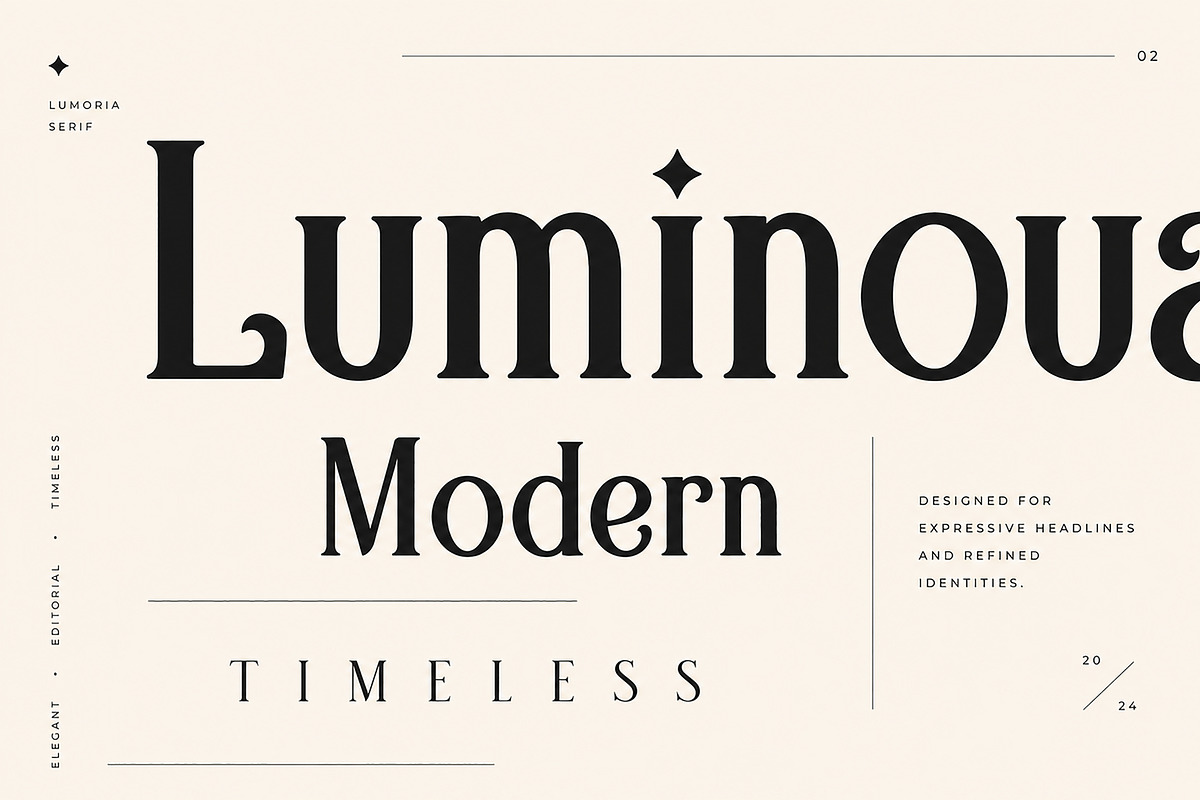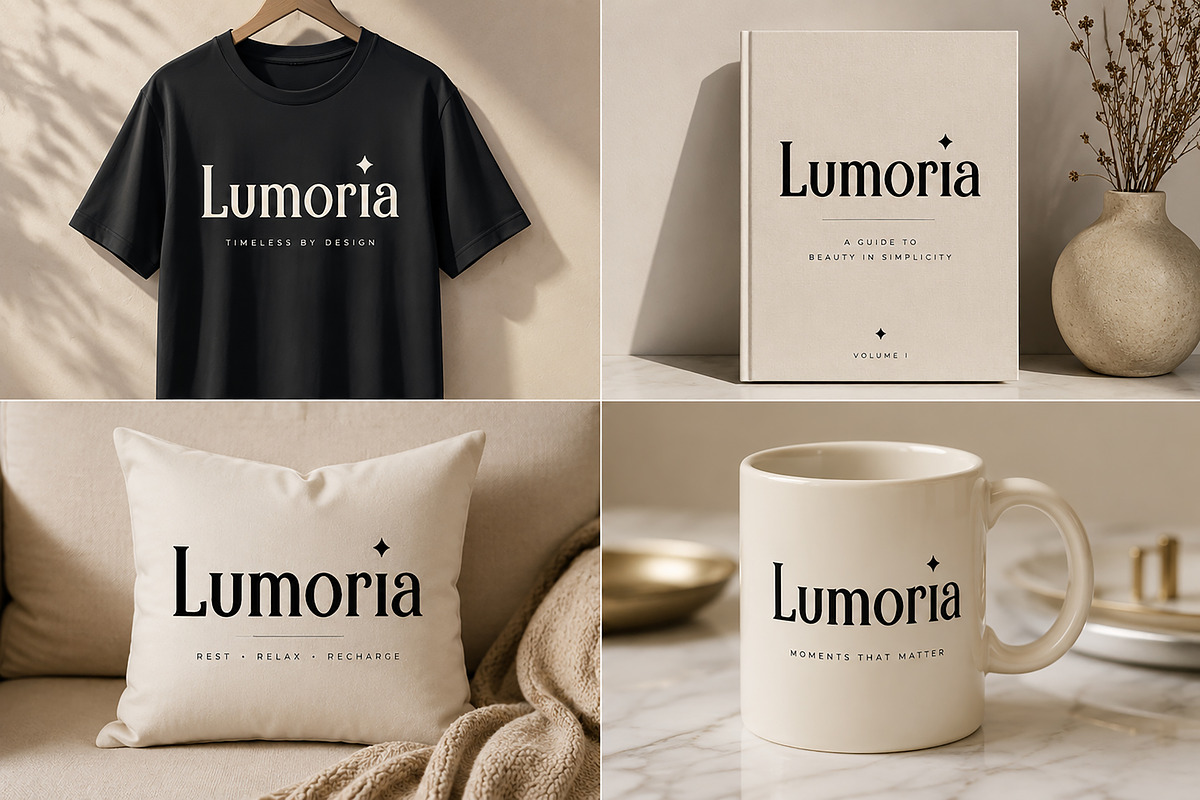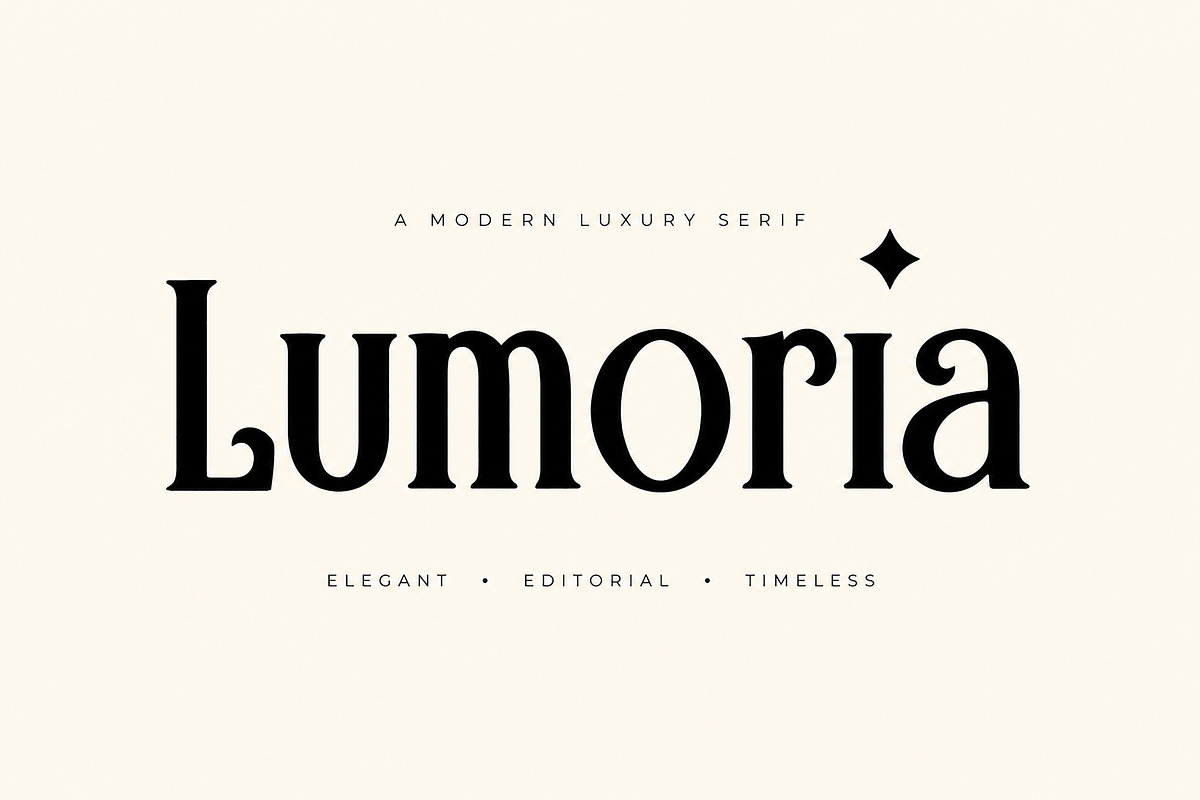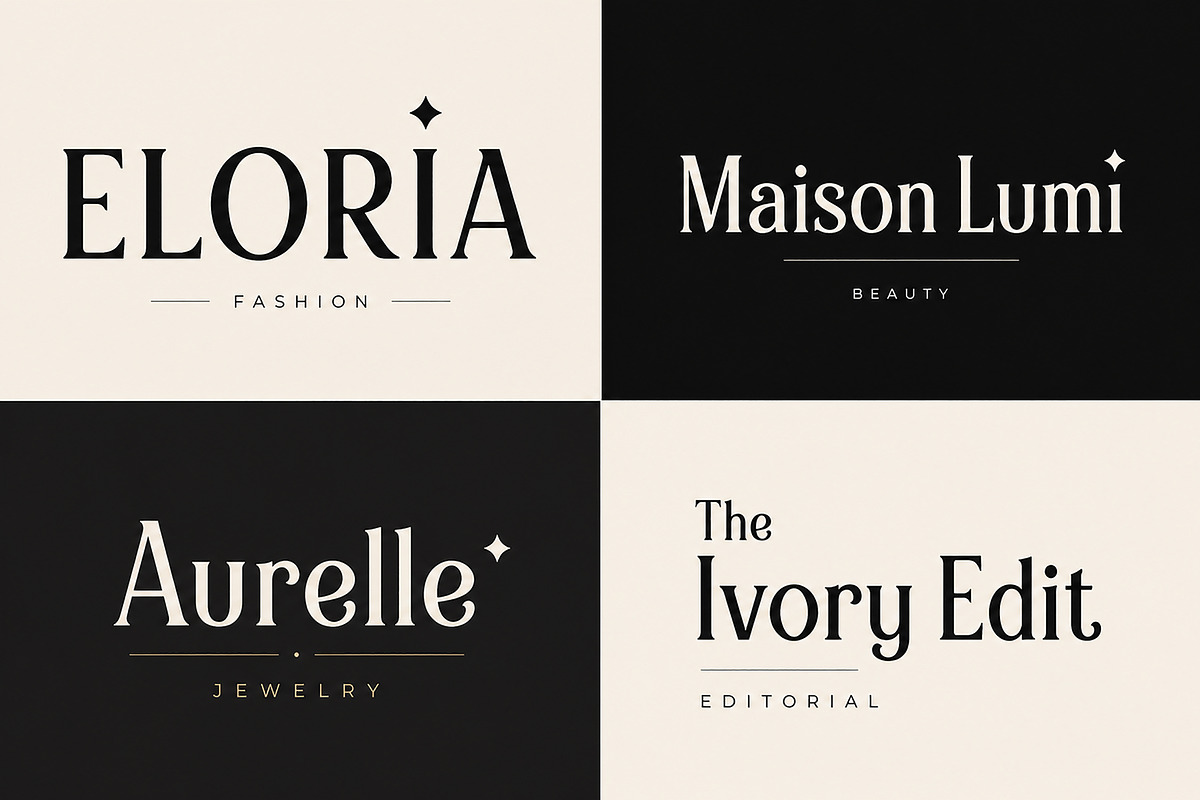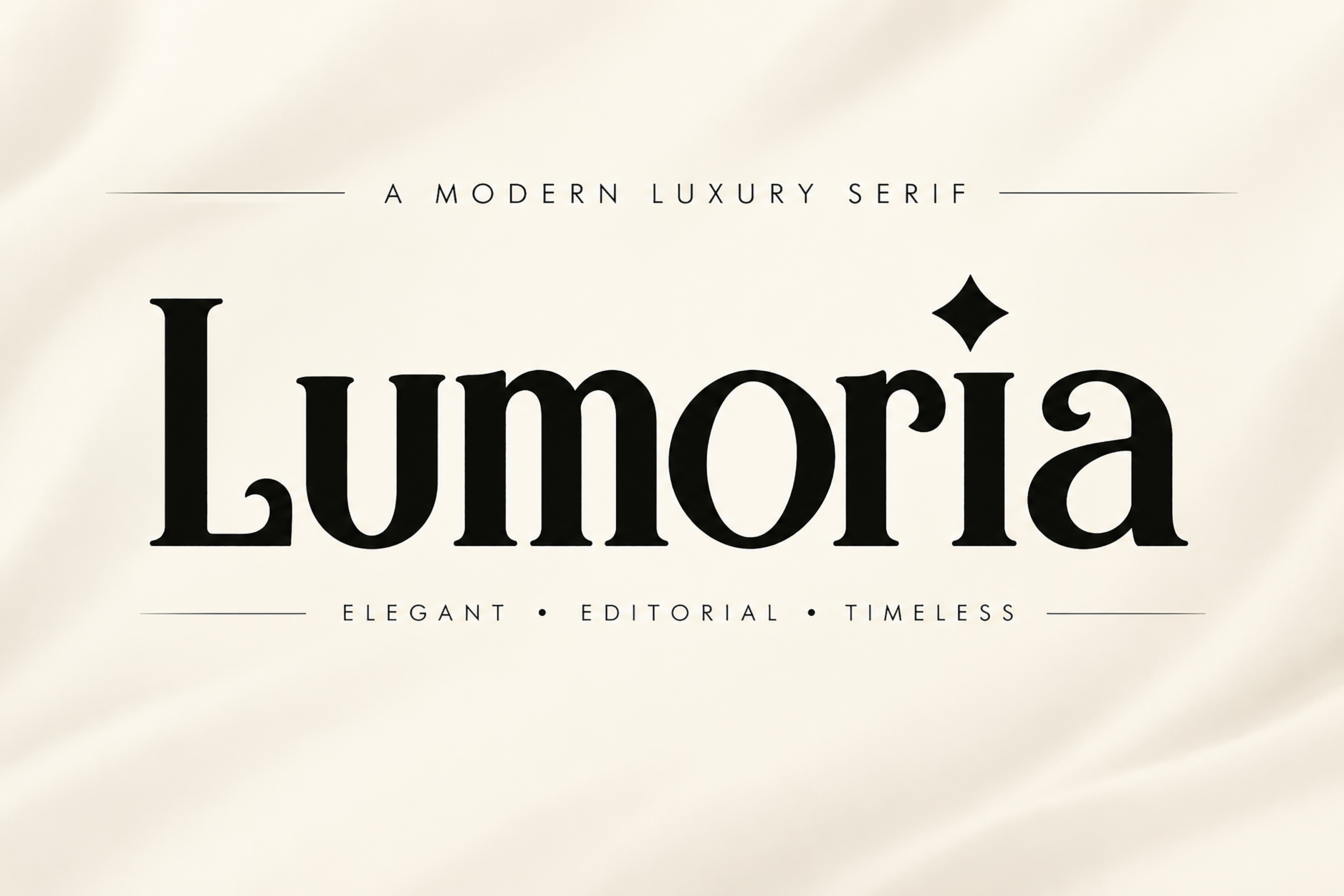
Lumoria – Modern Luxury Serif Font
Lumoria is a refined modern luxury serif font designed for elegant branding, editorial layouts, premium logos, and sophisticated visual identities. With graceful high-contrast letterforms and timeless proportions, Lumoria brings a luxurious and professional look to every design.
Whether you're creating fashion branding, beauty packaging, magazine headlines, invitations, or social media graphics, Lumoria adds a polished and memorable touch that stands out effortlessly.
Lumoria – Modern Luxury Serif
Introducing Lumoria, a modern luxury serif font crafted for designers who appreciate timeless elegance and refined typography.
Inspired by contemporary editorial design and premium branding, Lumoria features beautiful high-contrast letterforms with a clean, sophisticated appearance. Its balanced curves and stylish details make it an excellent choice for creating eye-catching headlines and memorable brand identities.
Lumoria is perfect for luxury, fashion, beauty, lifestyle, and editorial projects where elegance and readability matter.
Whether you're designing a logo, magazine cover, invitation, product packaging, website header, or social media content, Lumoria delivers a premium aesthetic that feels modern yet timeless.
Luxury Branding
Fashion Logos
Beauty Brands
Editorial Design
Magazine Headlines
Boutique Branding
Wedding Invitations
Cosmetic Labels
Restaurant Branding
Café Menus
Posters
Website Headers
Signature Branding
Modern Luxury Serif Style
Elegant High-Contrast Letterforms
Clean & Professional Design
Easy to Read
Perfect for Large Display Text
Great for Branding & Editorial Projects